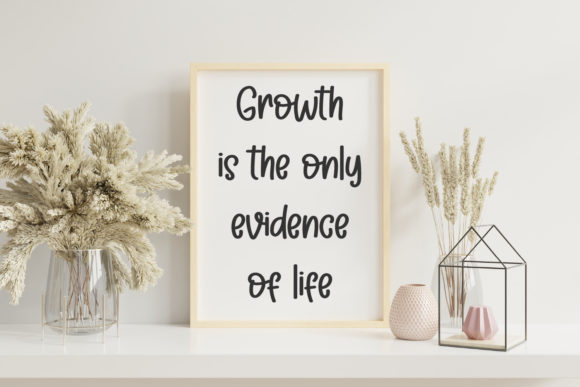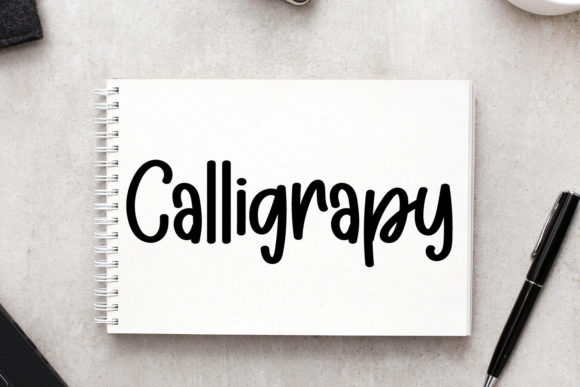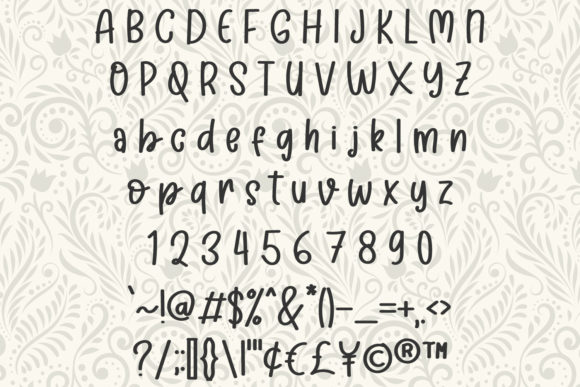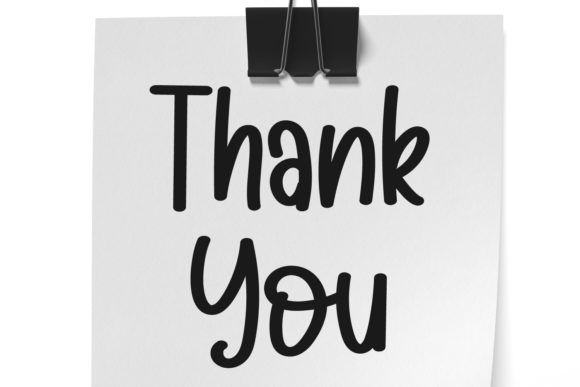
Signature is a sweet, whimsical, flowing and casual script font. Featuring characters that dance along the baseline, this font will add a luxury spark to any design project that you wish to create!